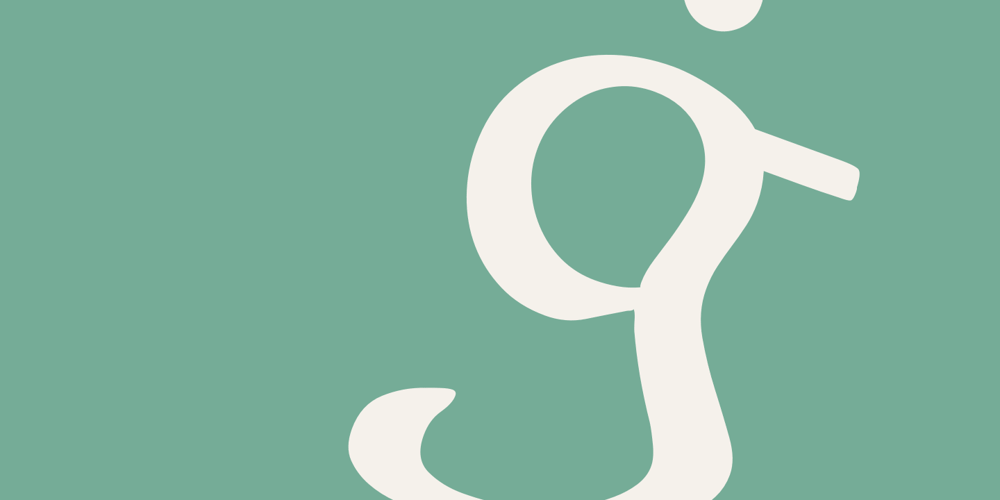
Codex
Codex font
Codex Font Family was designed by Georg Trump and published by Linotype. Codex contains 1 styles and family package options. Codex was designed by Georg Trump and introduced by the font foundry C.E. Weber in 1954. Based on the German Gothic script of the 13th century, this font has the character of handwriting. Its capital letters are extremely big in comparison with the lower case, hence good for contrast in short text, however, this characteristic makes the font better suited to languages which use fewer capital letters.